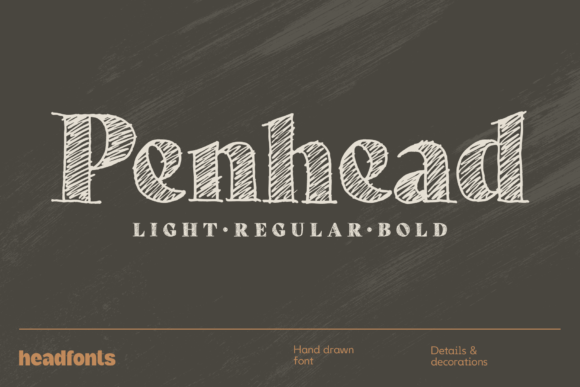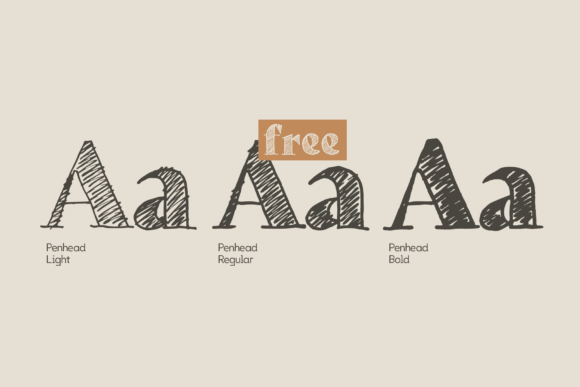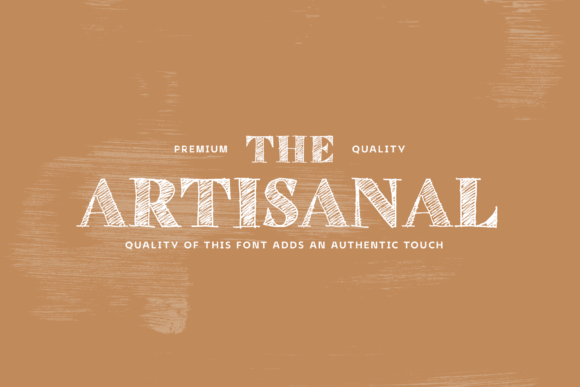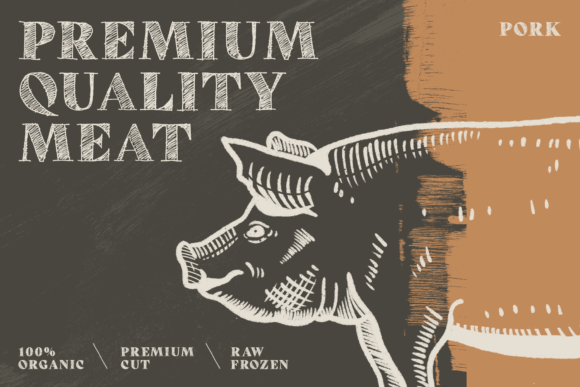
Penhead Font: A Charming Handwritten Serif for Vintage & Playful Design
About the Penhead Font
Unleash your creativity with Penhead Font, a versatile font perfect for a wide range of applications. Penhead is a warm, pen font that feels as if it’s been drawn by hand. It’s friendly and clear, with serifs, giving it a peculiar, old-timey vibe. This font comes in three easy-to-use weights — light for a gentle touch, regular for everyday use, and bold for a strong statement. Plus, it’s ready for a global audience with characters from different languages. It’s just right for making any type of graphics from packaging, banners, websites, and many more graphic materials.
Penhead’s friendly, slightly vintage feel makes it ideal for branding projects requiring a touch of nostalgia, particularly for artisanal products, cafes, or small businesses emphasizing handcrafted quality. It works well in headlines, short paragraphs, and logos, adding a personal touch to packaging and signage. However, its relatively low x-height makes it less suitable for extensive body text or UI elements where readability is paramount.
Pairing Penhead with a clean sans-serif like Lato or Open Sans for body copy creates a balanced contrast. For a more playful aesthetic, consider pairing it with a script font like Great Vibes, but use sparingly. A geometric sans-serif like Montserrat can also complement Penhead’s slightly informal character, providing a modern counterpoint to its vintage charm.
Penhead’s overall personality is best described as warm and approachable, with a hint of classic charm. Its subtle irregularities give it an authentic, hand-drawn feel without sacrificing legibility in shorter text applications.